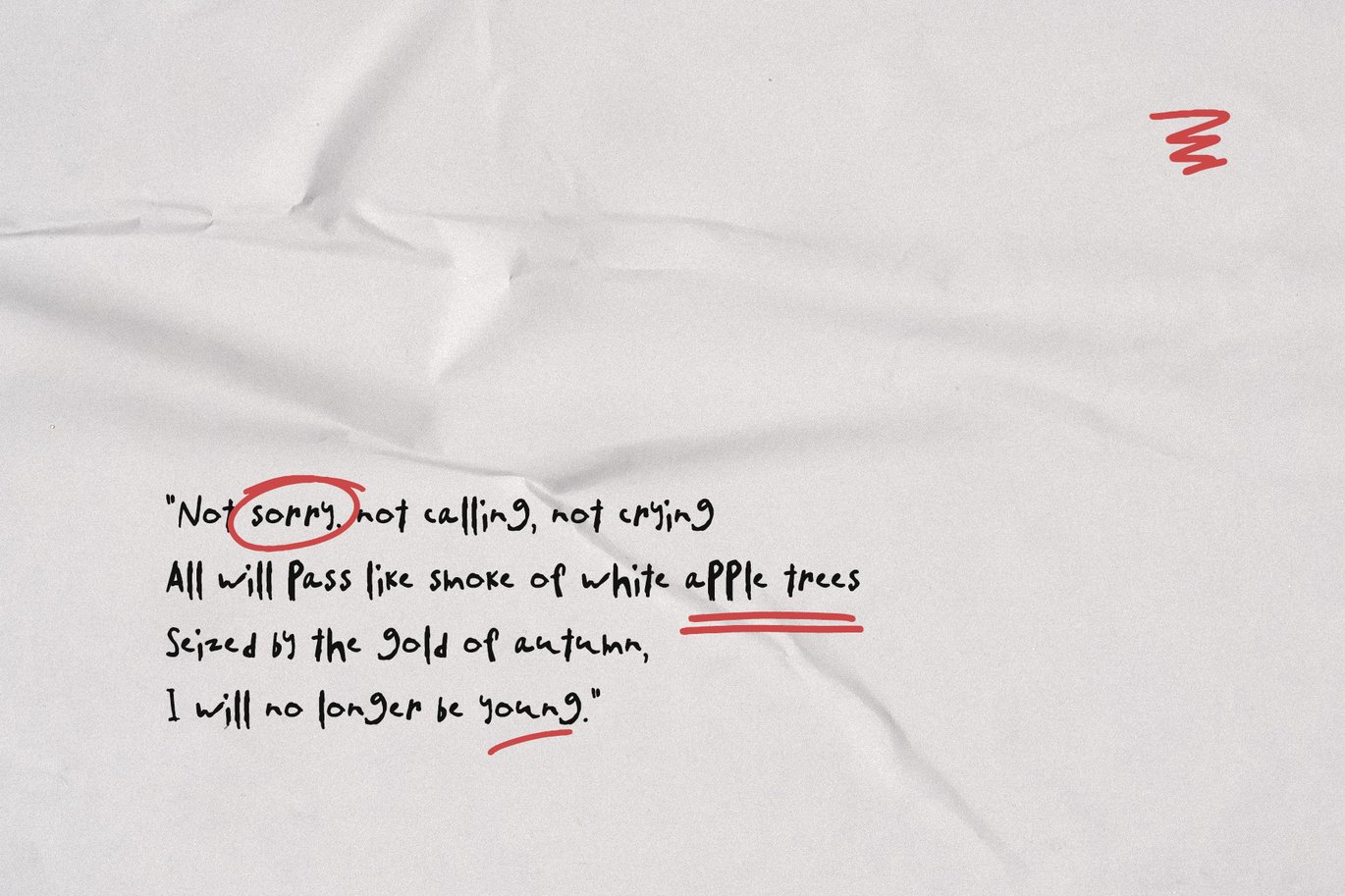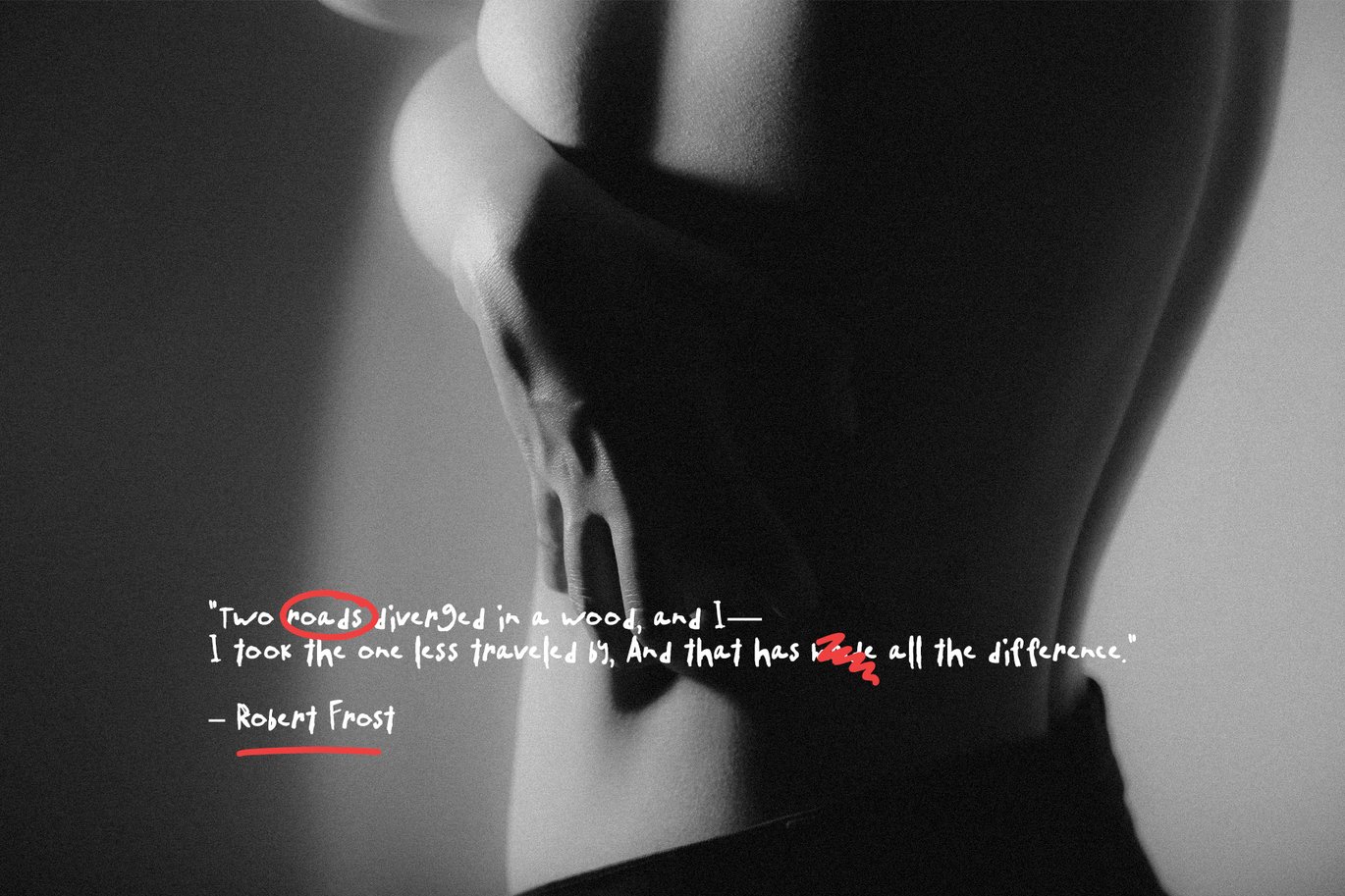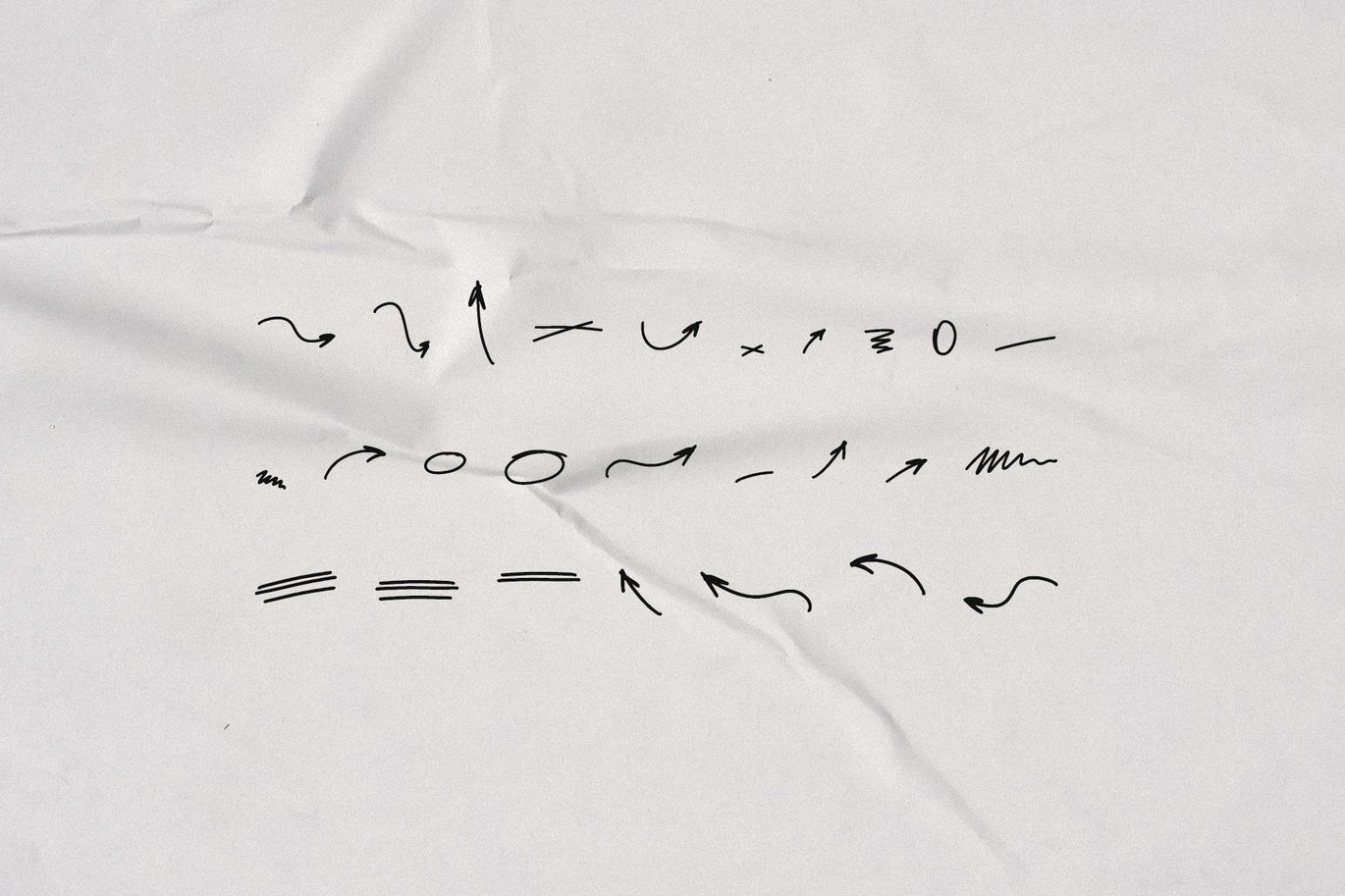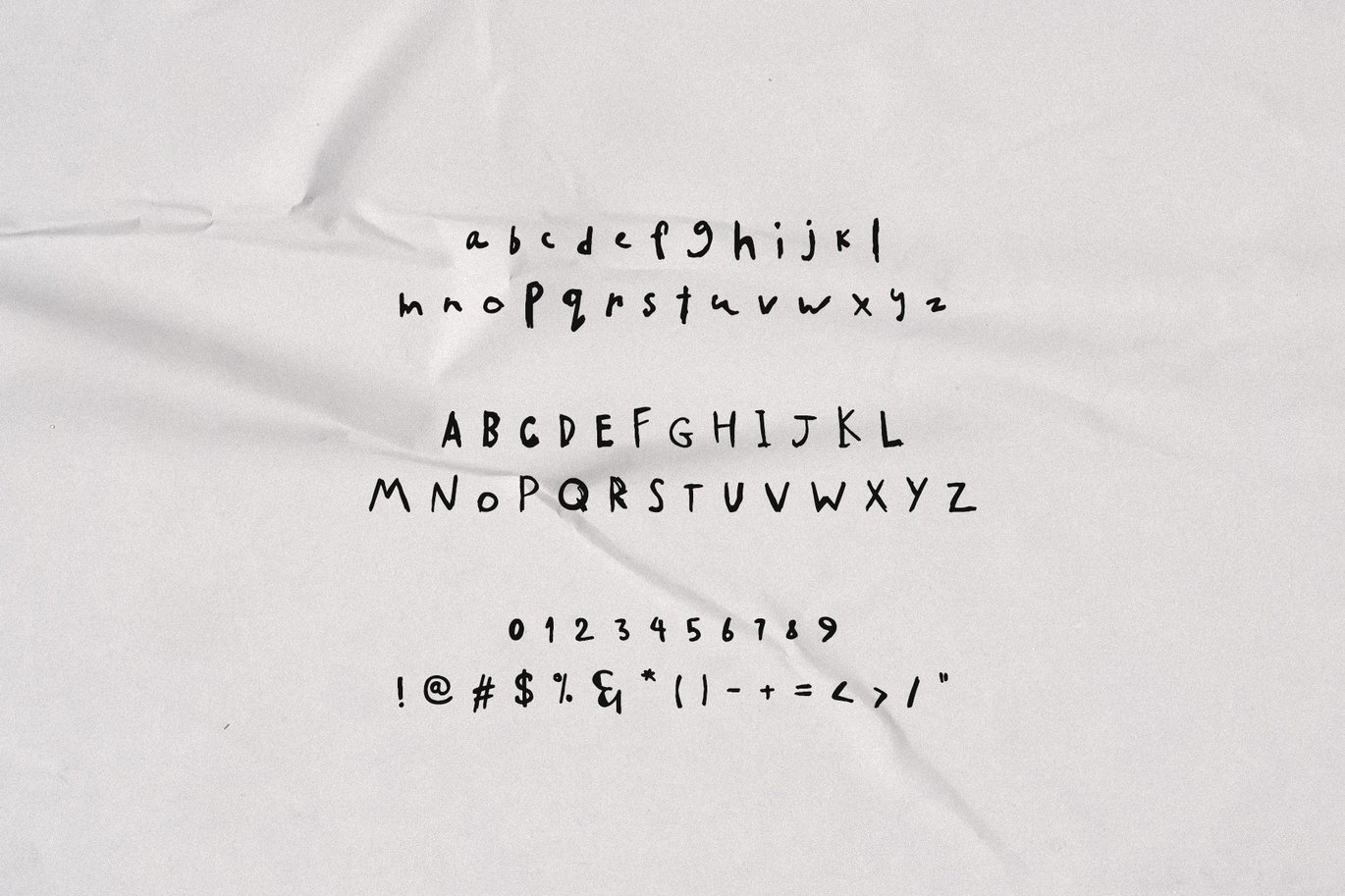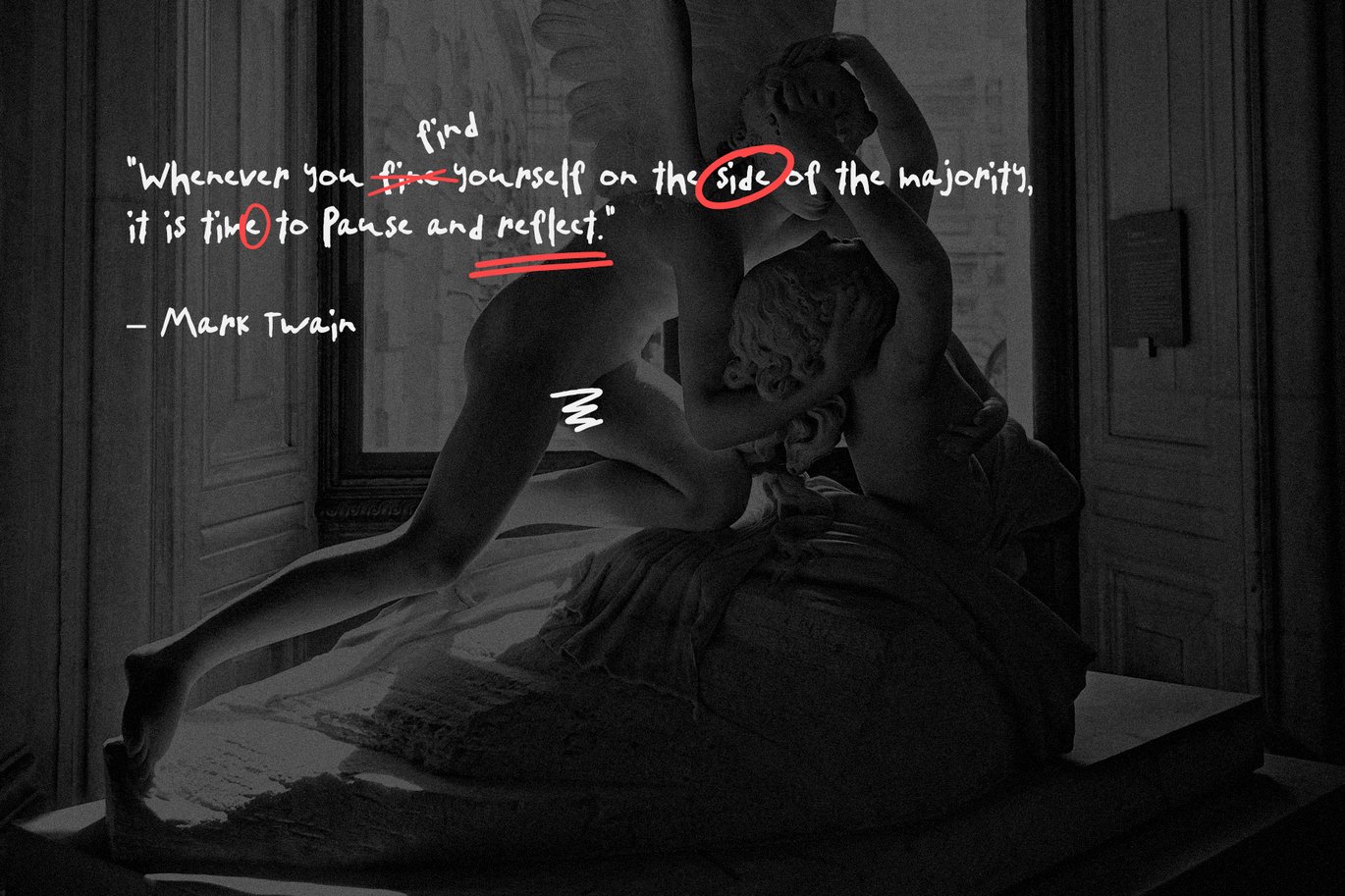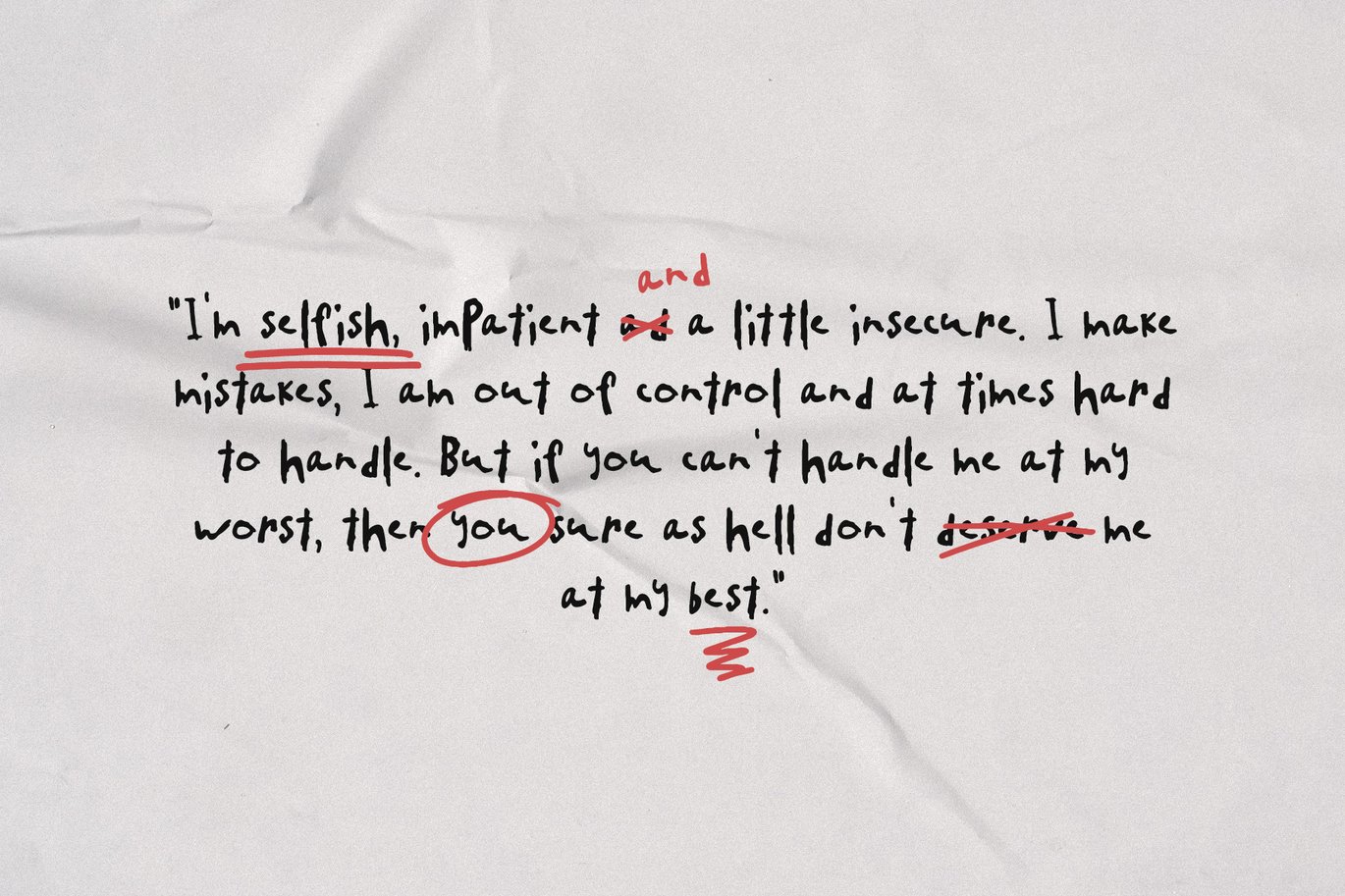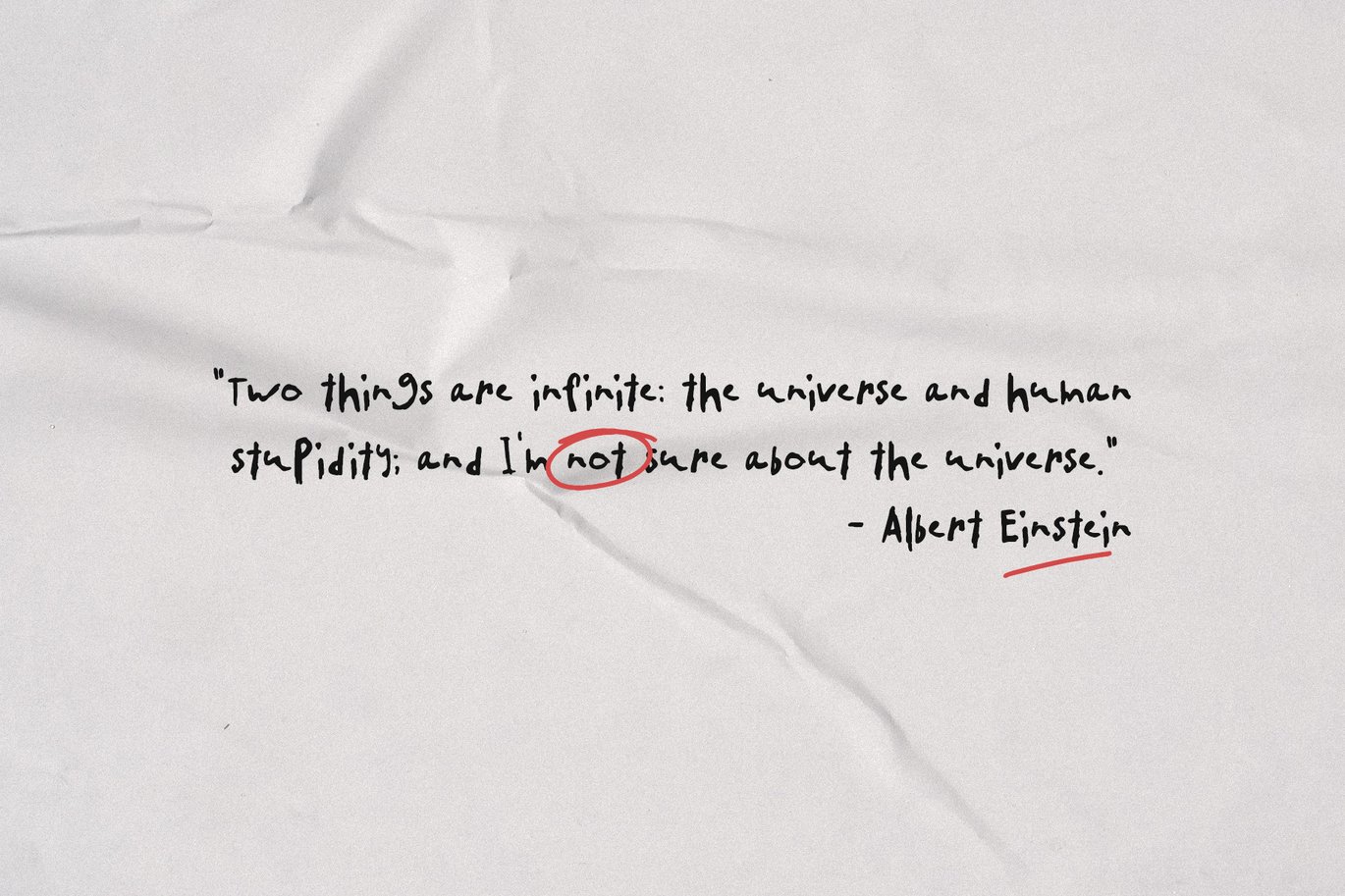
SA Yesenin Realistic Scribbles Font
Crazy font with upper and lower case letters, handwritten doodles in two styles. Suitable for the embodiment of all your ideas. Good for writing quotes and posters.